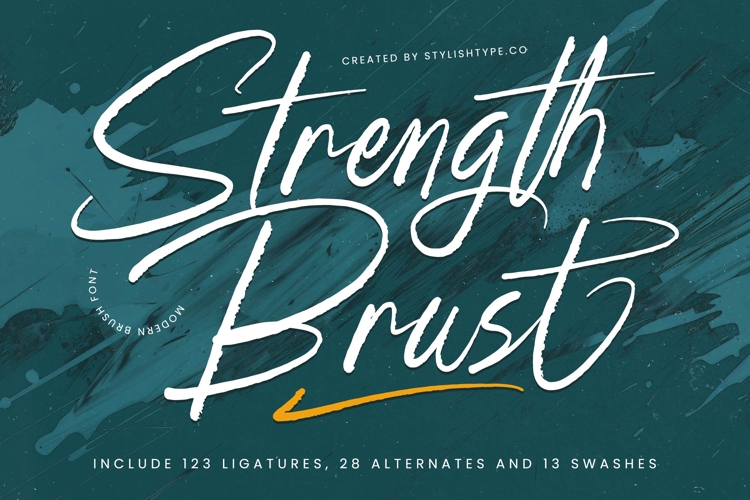
Strength Brust - Modern Brush Font
Strength Brust is a modern brush font designed to bring bold energy, creativity, and a dynamic handwritten look into your projects. Its textured strokes, natural flow, and expressive swashes give it a unique personality that is both artistic and powerful. Featuring 123 ligatures, 28 alternates, and 13 swashes, Strength Brust provides endless creative possibilities for impactful designs.
This font excels in branding. Perfect for logos, streetwear, sports brands, creative agencies, and artisan packaging, Strength Brust communicates strength and originality. Its brush style ensures that branding projects appear bold, stylish, and unforgettable, making it an excellent choice for businesses that want to leave a strong impression.
In editorial and publishing, Strength Brust adds an edgy artistic touch. Magazines, book covers, posters, and album art benefit from its expressive brush design. It creates editorial layouts that are visually striking and dynamic, perfect for capturing attention.
For web typography, this brush script integrates seamlessly across blogs, websites, online shops, and social media platforms. Its bold, natural look ensures that digital media projects feel modern, engaging, and authentic, helping creators and brands connect with their audience in a powerful way.